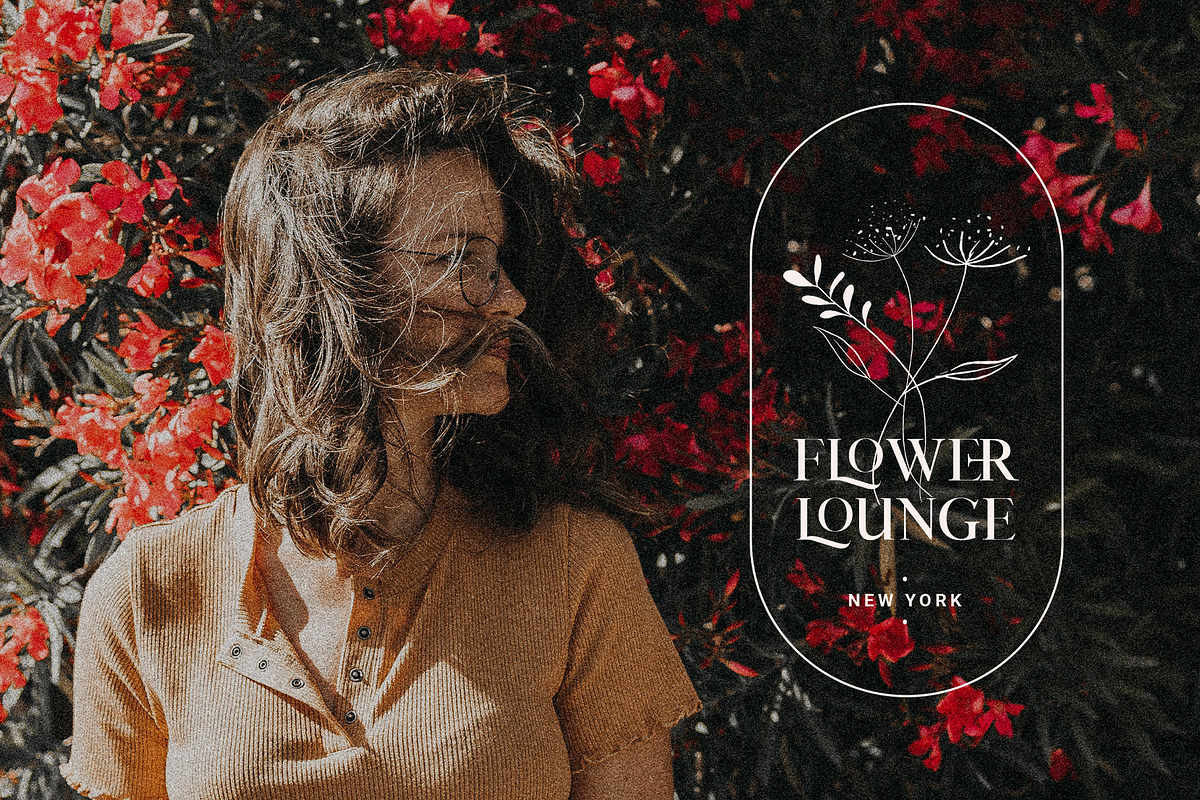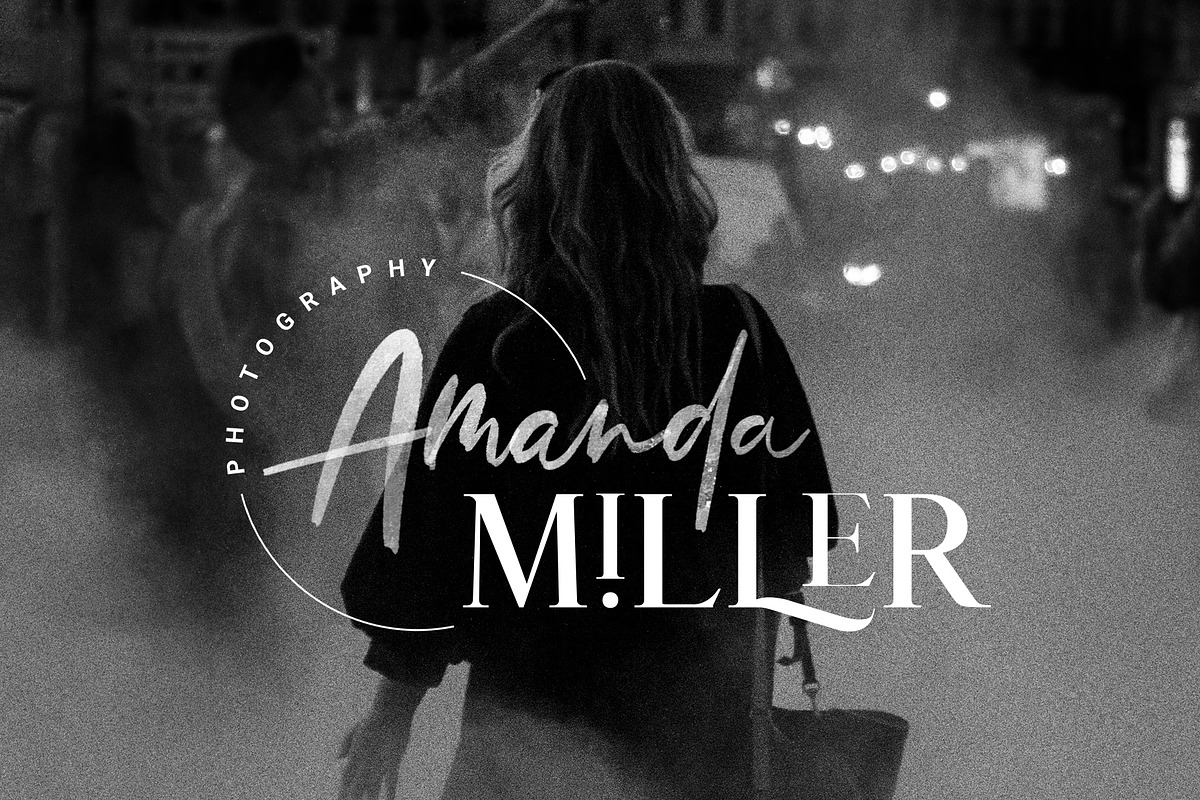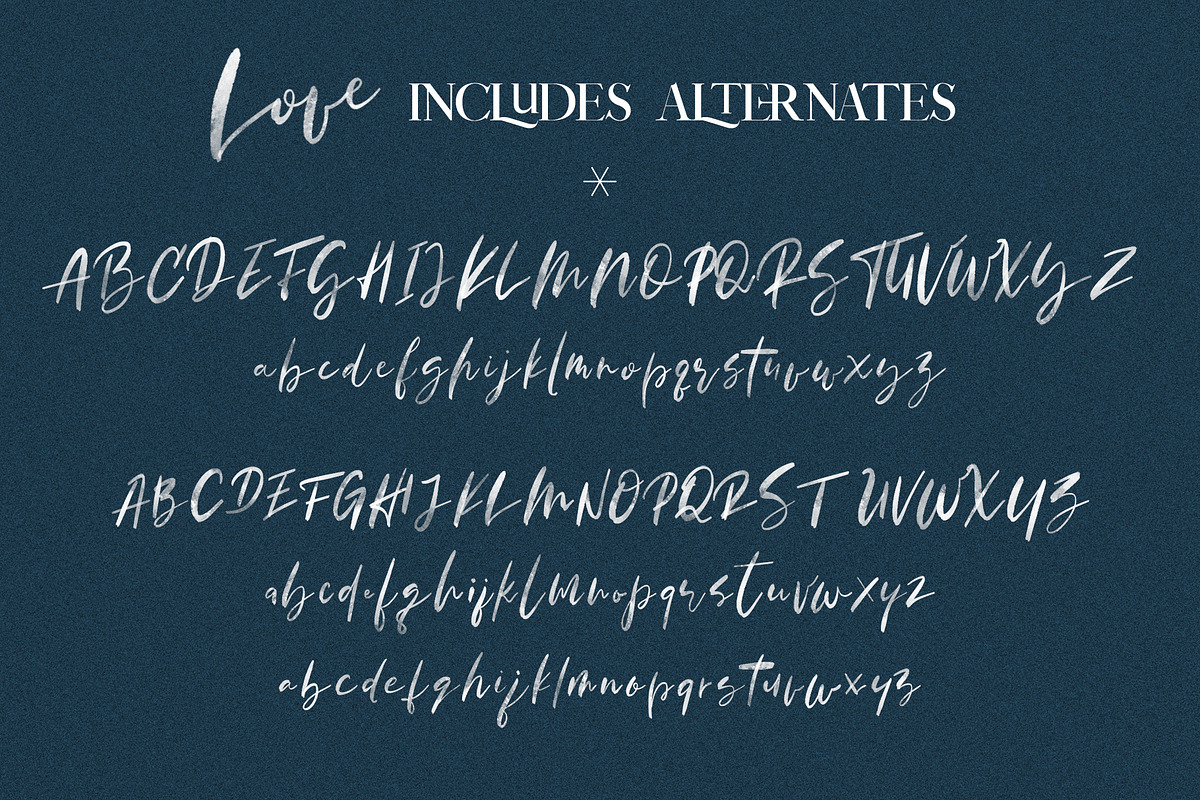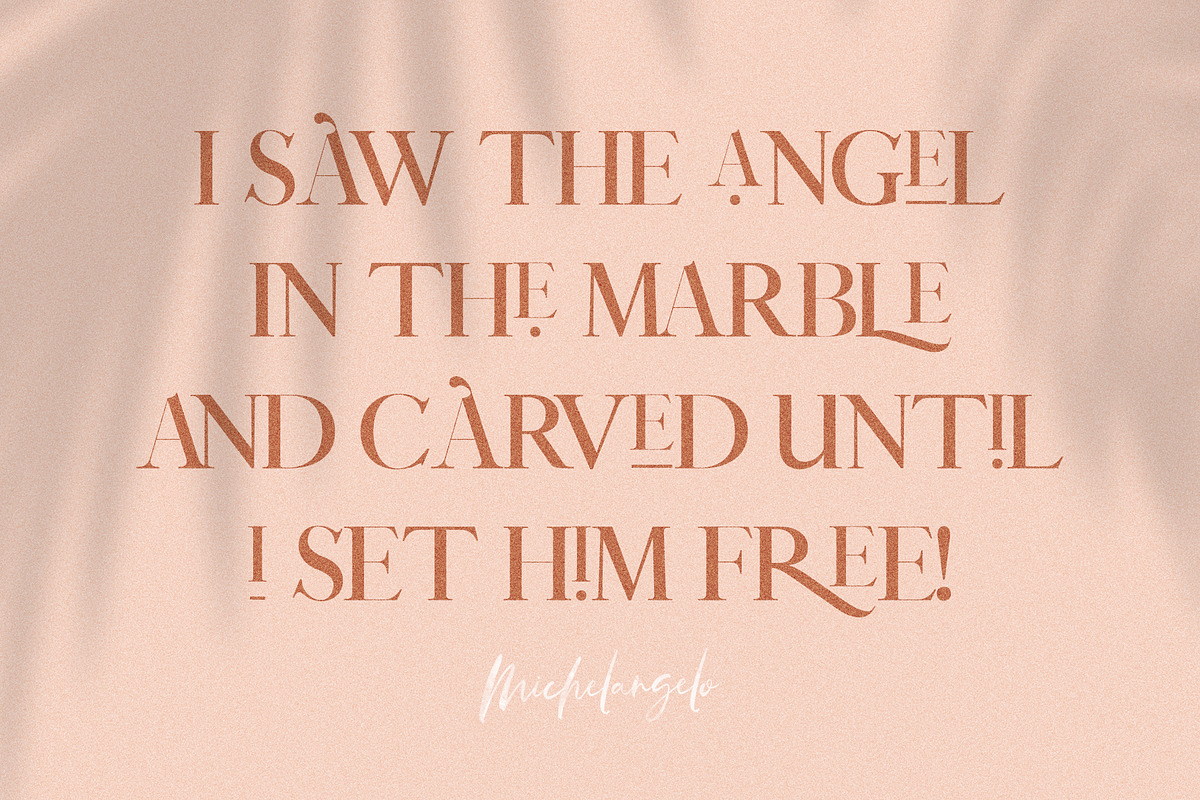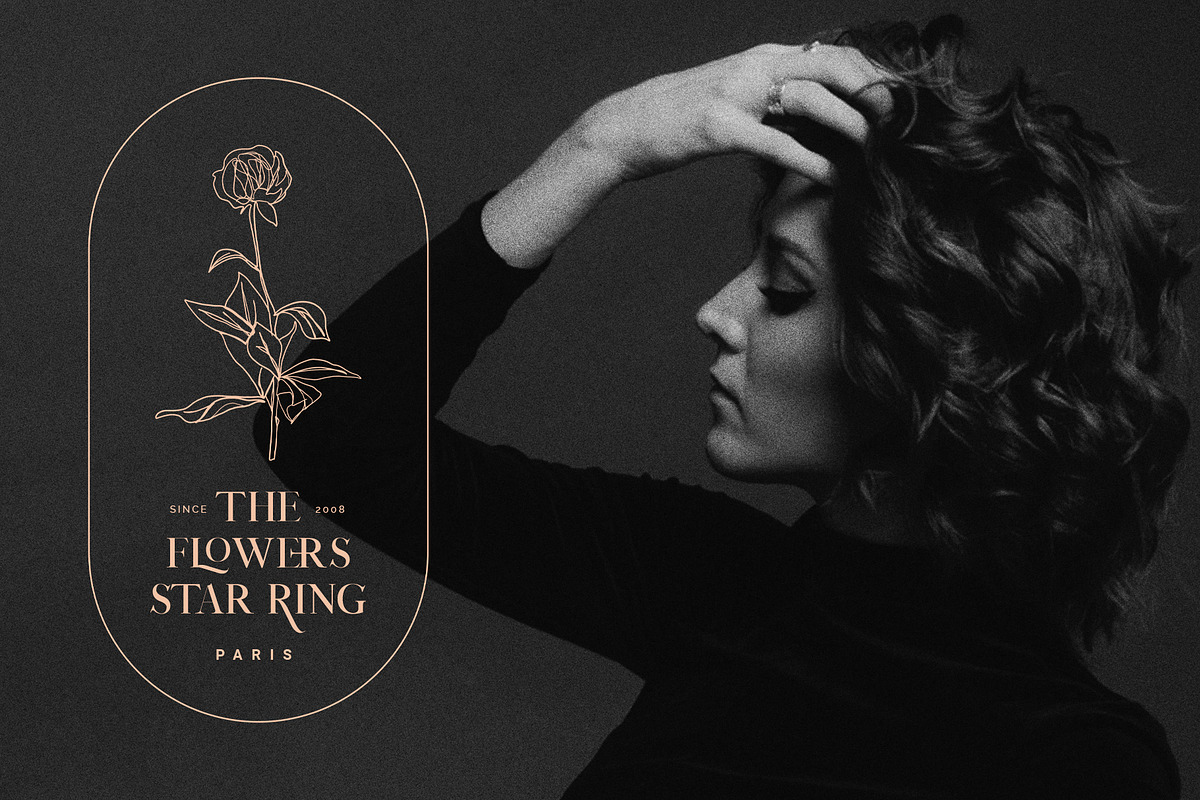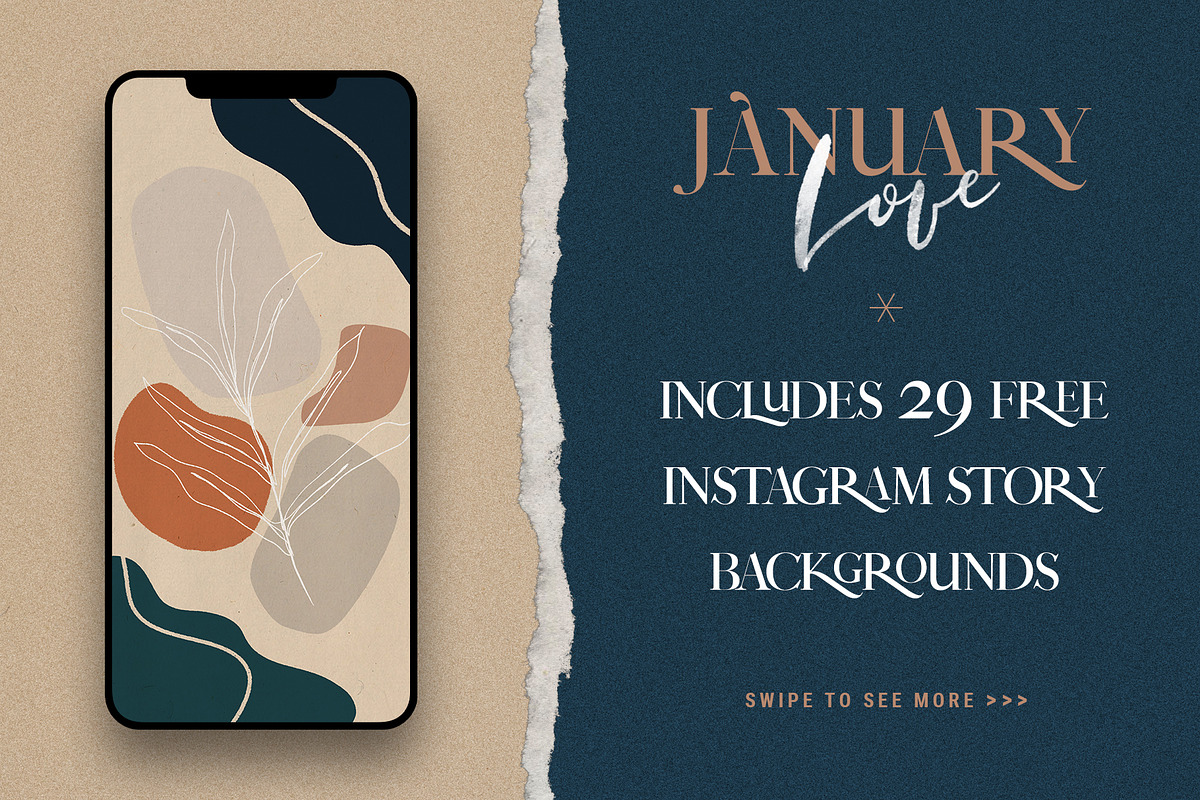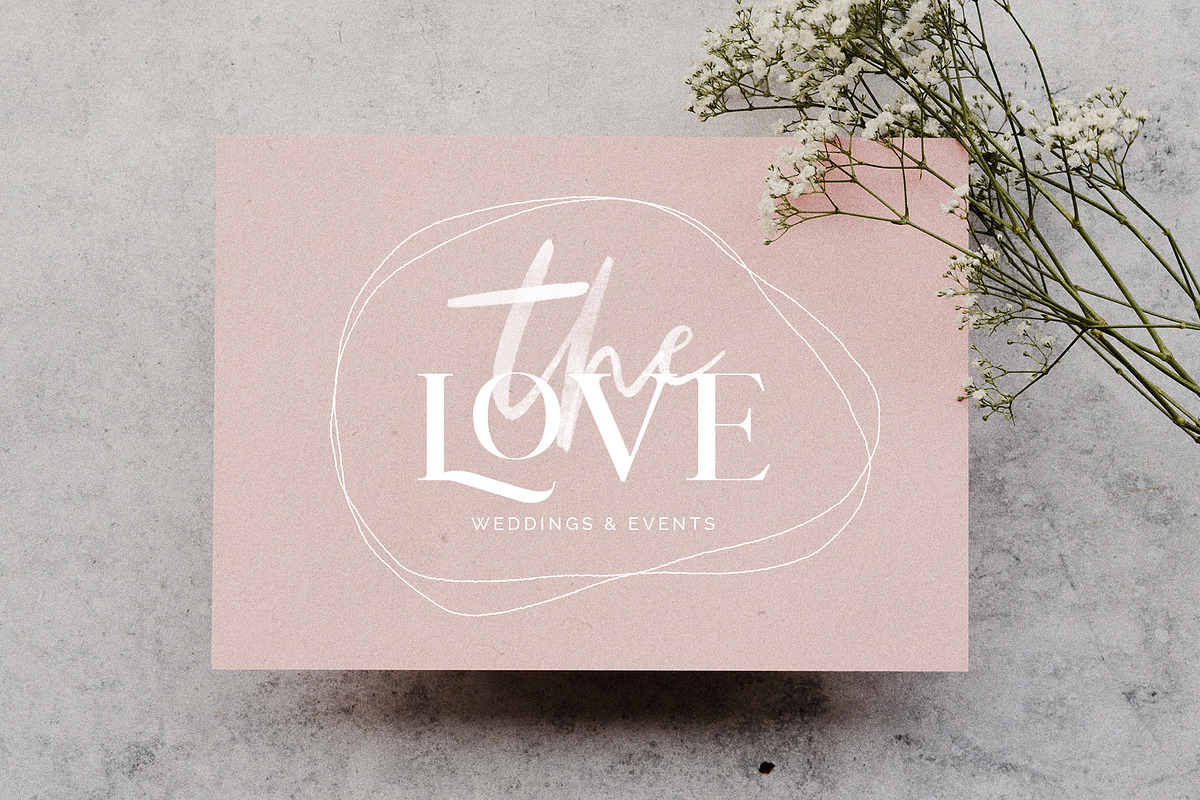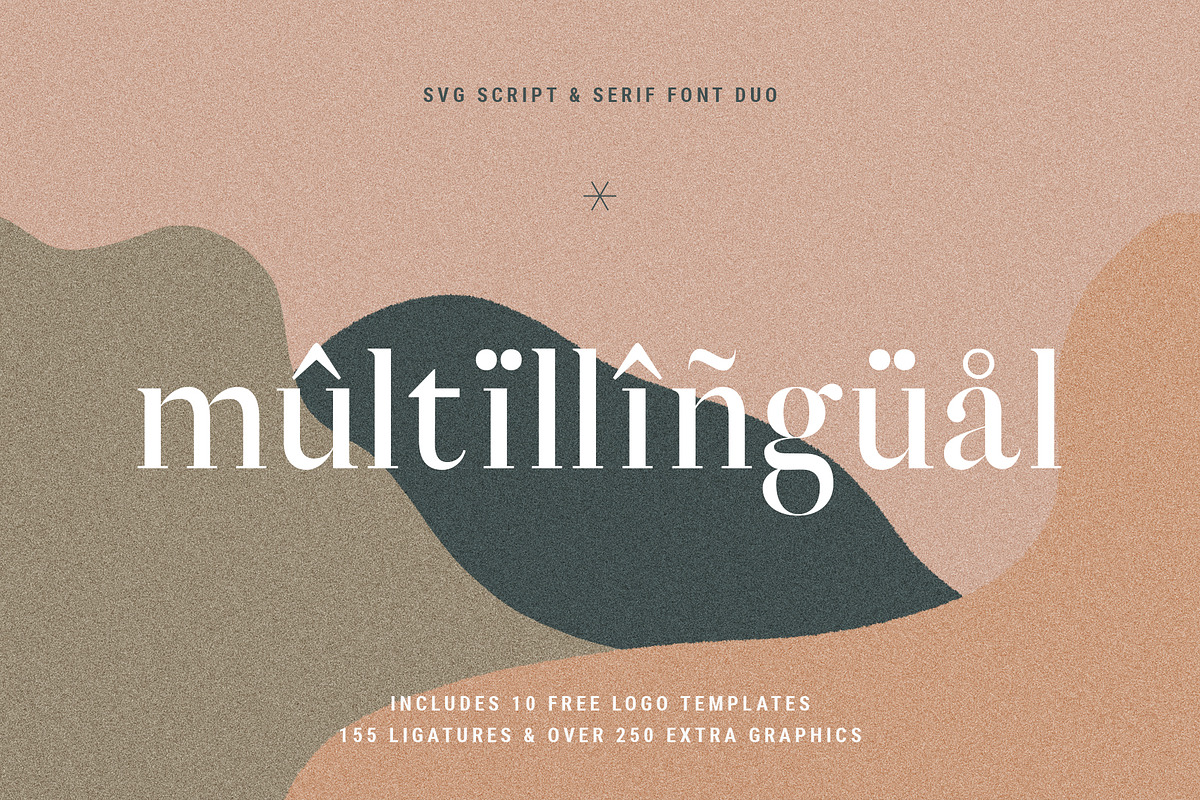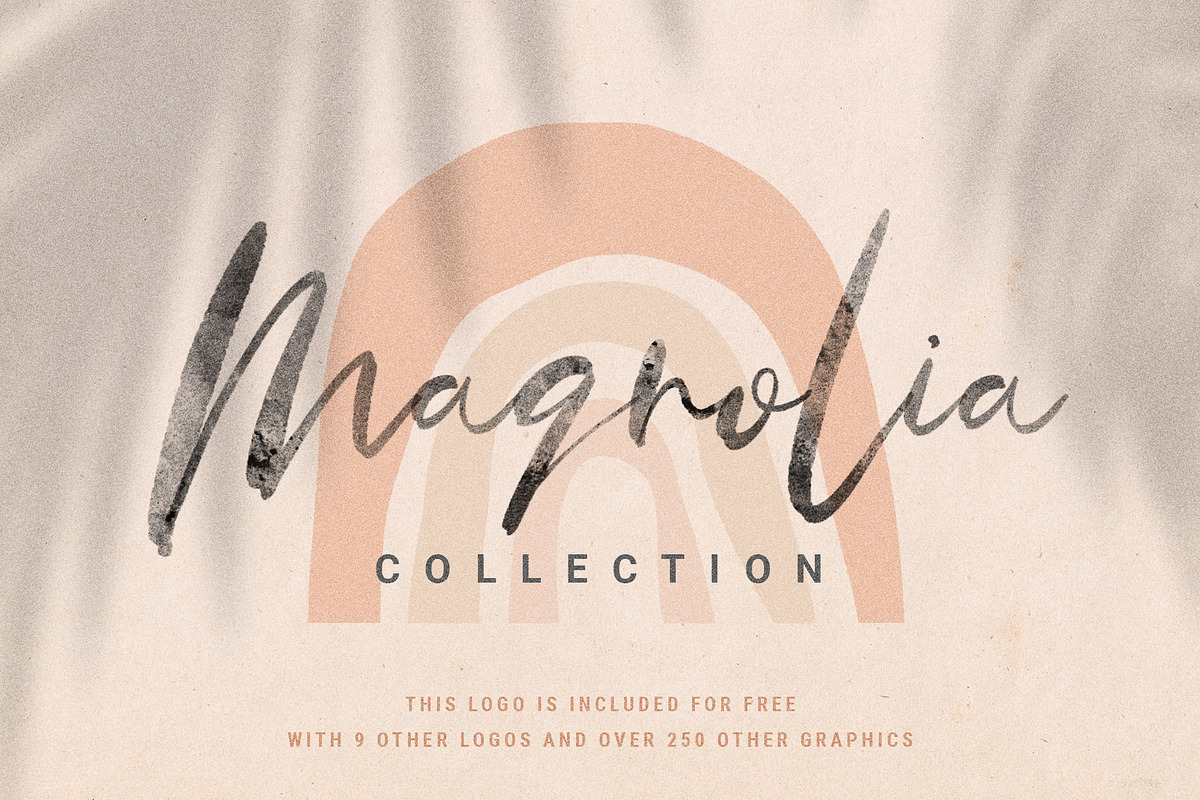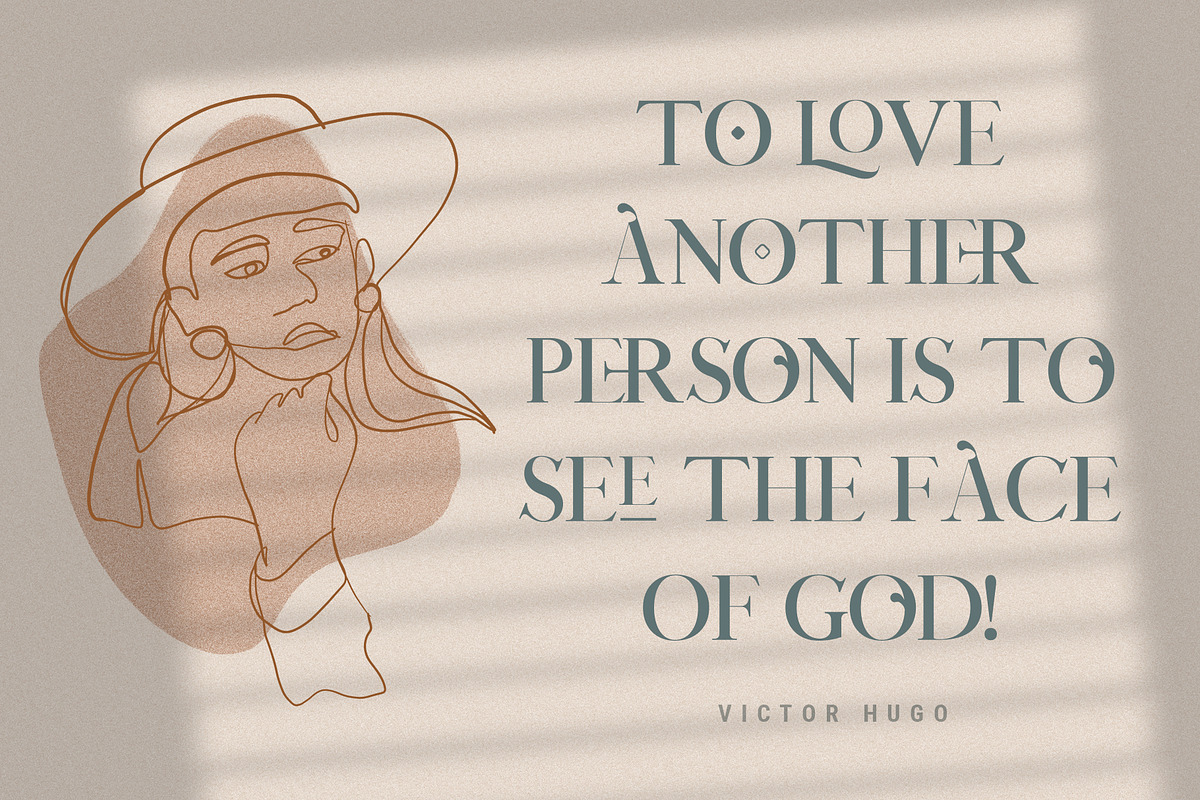
January Love - SVG Font Duo Pack
When you hear words "month of love", January is definitely not something that comes to your mind first. But, let's change that a bit and give January some ❤️ At least, that's what I'm trying to do with my new font duo January Love! A creative and elegant serif and a hand drawn watercolor script are definitely a lovely pair (pun intended)!
These two fonts are actually not just two simple fonts, the pack is full of unique alternates, ligatures and some spicy extras! January serif comes with 67 ligatures and alternate letters, Love SVG comes with one additional set of uppercase and two sets of lowercase letters + amazingly creative 88 ligatures. Love SVG also comes as a standard version Love Script that is here for all of you who use older versions of Photoshop, Illustrator or some other app to make your designs.
JANUARY LOVE Font Duo Includes:
- JANUARY serif font with 67 alternates and ligatures
- LOVE SVG script font with with 1 additional uppercase and 2 lowercase alternate letters + 88 ligatures that will make your text look even more unique
- Love Script that is actually intended for software that doesn’t support SVG fonts